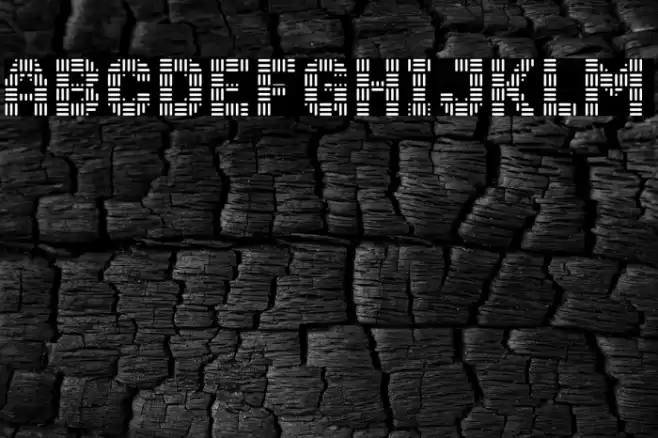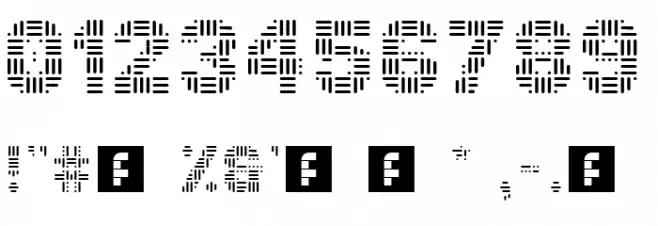
Forge Of The Cyclops Font
Forge Of The Cyclops Description
This font features a unique and striking design characterized by a series of horizontal and vertical lines that create a digital, pixelated effect. Each character is composed of a grid-like pattern, giving it a futuristic and mechanical appearance. The uppercase and lowercase letters, along with numbers and special characters, maintain this consistent style, making it highly distinctive. The font's geometric structure and uniformity make it stand out, suitable for projects that require a modern and edgy aesthetic.
A futuristic, grid-patterned font with a digital, mechanical look from Decorative fonts.
- Proposed Projects: Ideal for tech-related branding, video game titles, sci-fi posters, and digital art projects.